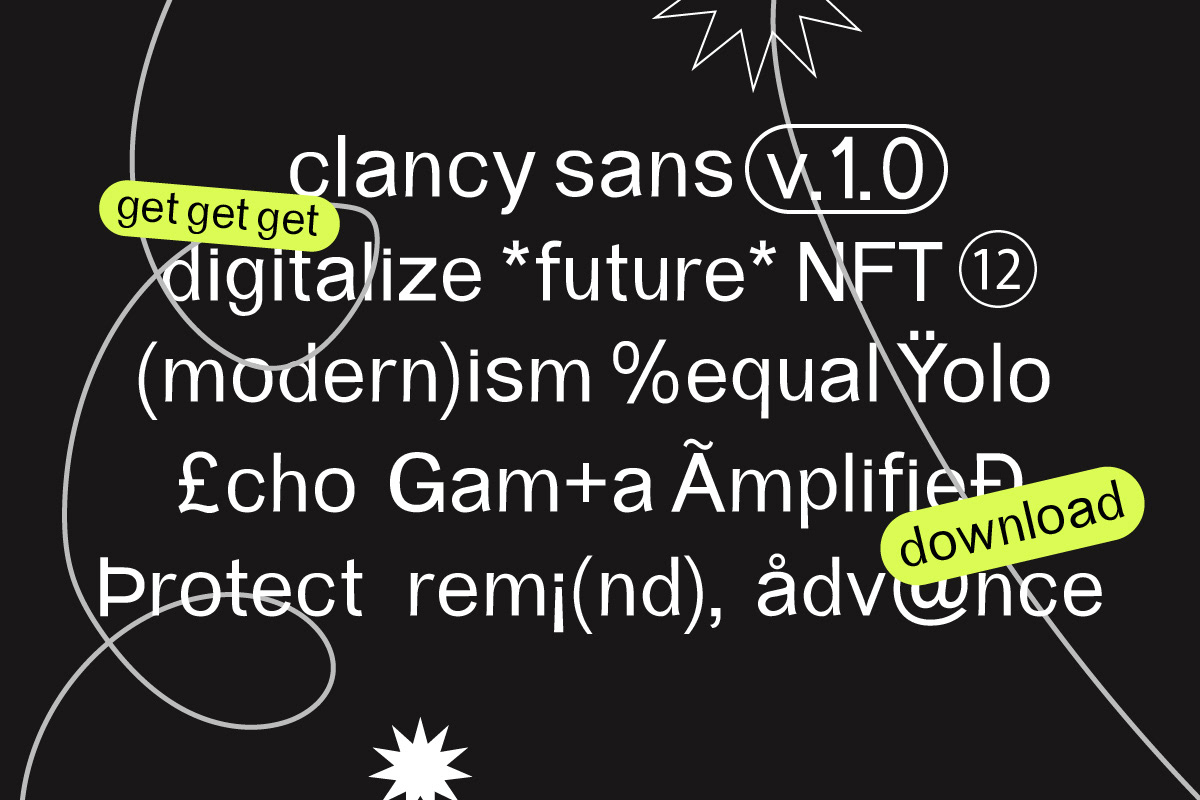
Clancy Font
Clancy, from firstype studio, is a unique sans serif font.
Clancy's opentype feature includes ligatures and stylistic alternates to allow you to mix and match the letters of your choice to make your own amazing design. This font also has multilingual support!